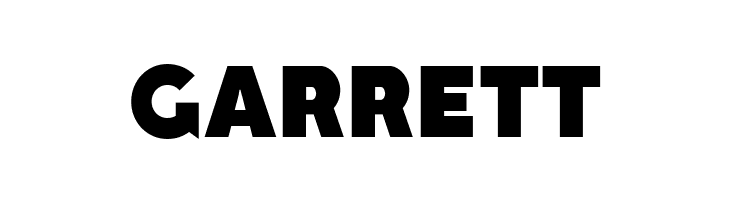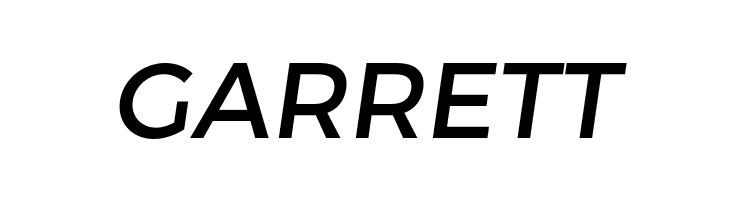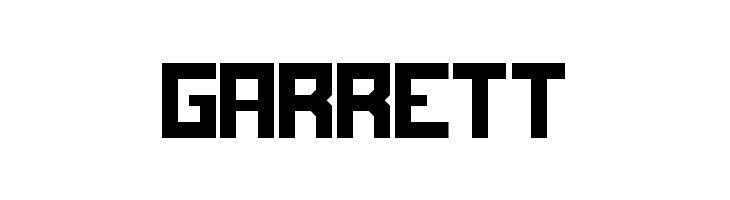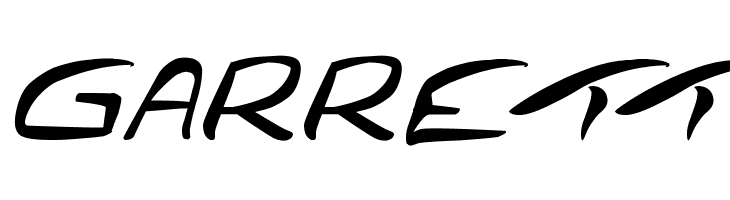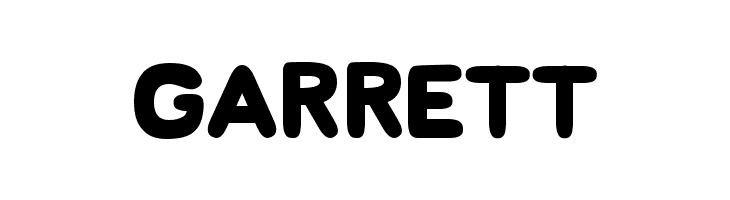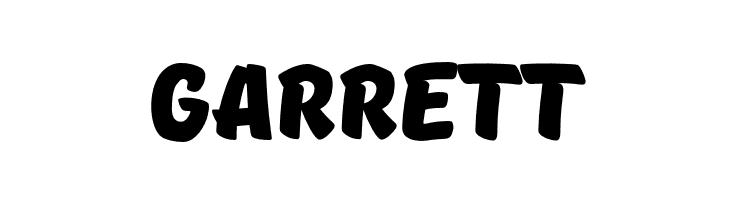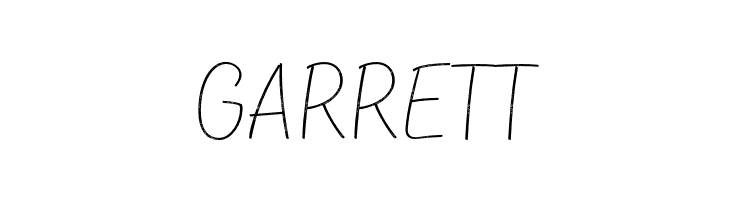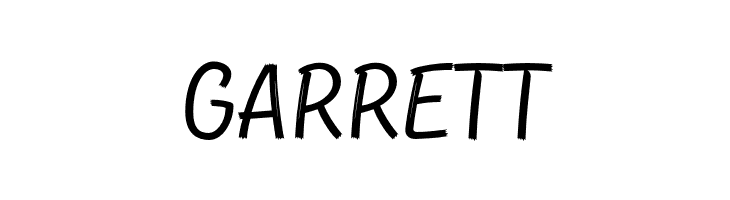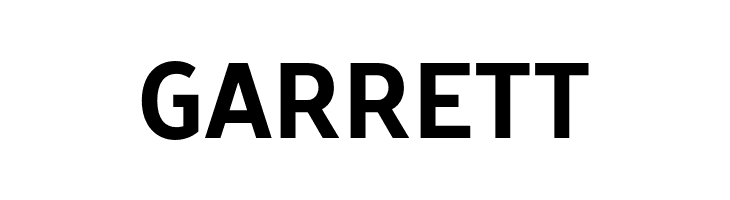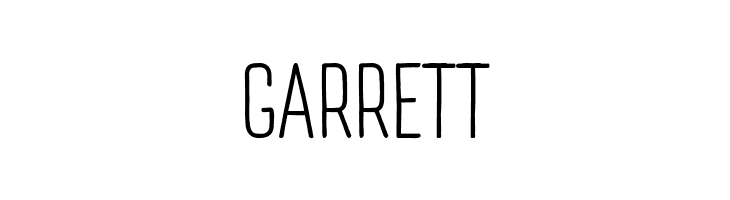
• Trirong Medium Italic
A medium-weight, italic serif font with elegant, slanted characters.
• Trirong Regular
A classic serif font with elegant strokes and timeless appeal.
• Trirong SemiBold
A classic serif font with a semi-bold weight, combining elegance and readability.
• Trirong SemiBold Italic
A semi-bold, italic serif font with a classic and elegant style.
• Trirong Thin
A thin, elegant serif font with high contrast and sharp serifs.
• Trirong Thin Italic
A thin, italic serif font with elegant, refined strokes and classic styling.
• Trompus
• Tropic of Cancer
A hand-drawn, textured font with a rustic and organic feel.
• Trueno
A modern, italic sans-serif font with a clean and dynamic style.
• Trueno Round
A modern, rounded font with clean lines and excellent readability.
• Trueno Round Bold
A bold, rounded font with a modern and friendly appearance.
• Trueno Round Italic
A modern, rounded italic font with a friendly and approachable style.
• Trueno Rounnd Bold Italic
A bold, rounded, and italic font with a modern and approachable style.
• Trueno UltraBlack
A bold, ultra-black sans-serif font perfect for impactful headlines.
• Trueno UltraBlack Italic
A bold, ultra-black italic font with a modern and dynamic style.
A pixelated, retro-style font with a digital display aesthetic.
• TTCottonsLight-DEMO
A modern, light sans-serif font with tall, narrow characters and minimal contrast.
• TTMastersDEMOBirdsRegular
A dynamic, slanted font with a hand-drawn, energetic style.
• TTMastersDEMOBlack
A bold, playful font with rounded, hand-drawn characters.
• TTMastersDEMORoughThin
A modern, handwritten font with thin, elegant strokes and a slight slant.
• TTProstoSansCondensedDEMO-Bold
A bold, condensed sans-serif font with a modern and clean design.
• Tubolao